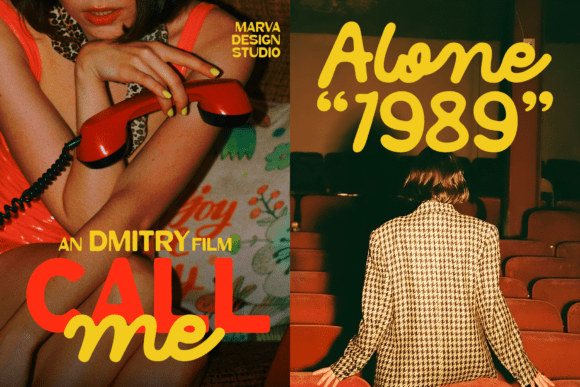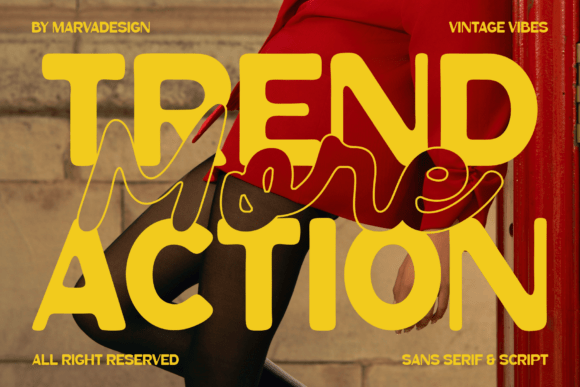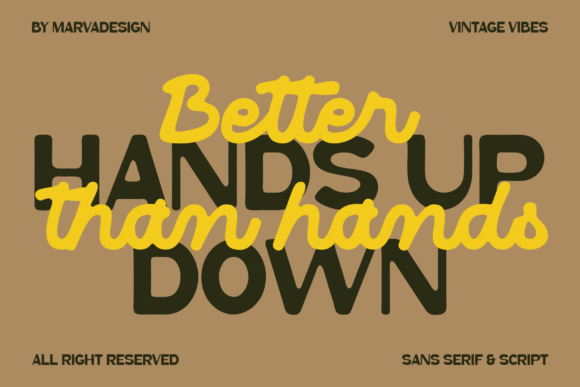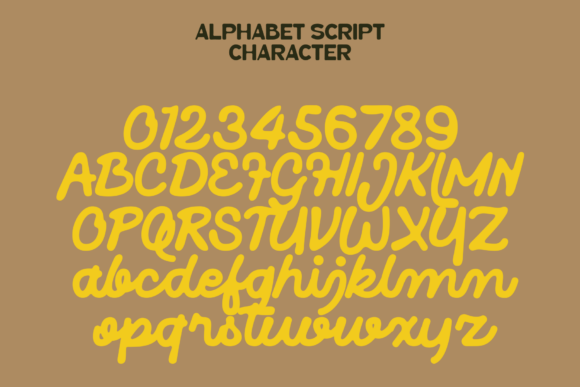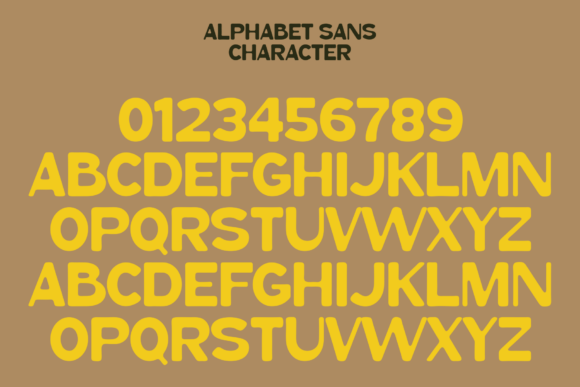
The Perfect Blend of Vintage Charm and Modern Flair
As a designer, have you ever found yourself stuck in a creative rut, searching for the perfect font to capture the essence of your brand’s personality? You’re not alone. We’ve all been there, pouring over font libraries, hoping to stumble upon that one typeface that speaks to our audience. That’s where the Bolze Font duo comes in – a bold and expressive pair of styles that combines the best of vintage charm with modern playfulness.
Bolze Font is more than just a typeface – it’s a key to unlocking the perfect visual harmony for your next design project. Whether you’re working on a retro branding campaign, creating a poster for an upcoming event, or crafting social media titles that pop, Bolze Font’s unique blend of styles is sure to deliver.
Bolze Font Key Features
- Font Family: Bolze is a sans-serif font family designed for digital use, making it ideal for on-screen reading.
- Font Sizes: Available in 5 different weights (Light, Regular, Medium, Bold, Black) and 4 different widths (Condensed, Semi Condensed, Normal, Semi Expanded).
- Unique Characteristics: Bolze features a clean and modern design with a unique geometric feel, making it an excellent choice for branding and digital projects.
Bolze Font Review
Initially, I was drawn to the unique aesthetic of the Bolze Font, which blends modern and vintage elements. ✨ The font’s distinctive curves and rounded edges give it a friendly, approachable feel that’s perfect for headings and titles. It also comes in a range of weights, from light to bold, which can be useful for creating visual hierarchy.
One of the things I appreciate about Bolze Font is its high level of legibility, even at small font sizes. ✨ This makes it an excellent choice for digital applications, such as websites and mobile apps. Additionally, the font is highly versatile and can be used for a wide range of projects, from branding and marketing materials to editorial and publishing content.
- ⚠️ The Bolze Font may not be suitable for formal or traditional applications, as its playful aesthetic may not fit with more serious or conservative styles.
- ⚠️ Some users may find the font’s rounded edges and curves to be too whimsical or cursive-like, which could affect readability in certain contexts.
Overall, I think the Bolze Font is a great choice for designers who want to add a touch of personality and whimsy to their projects. While it may not be suitable for every application, its unique aesthetic and high level of legibility make it a solid option for a wide range of design tasks.